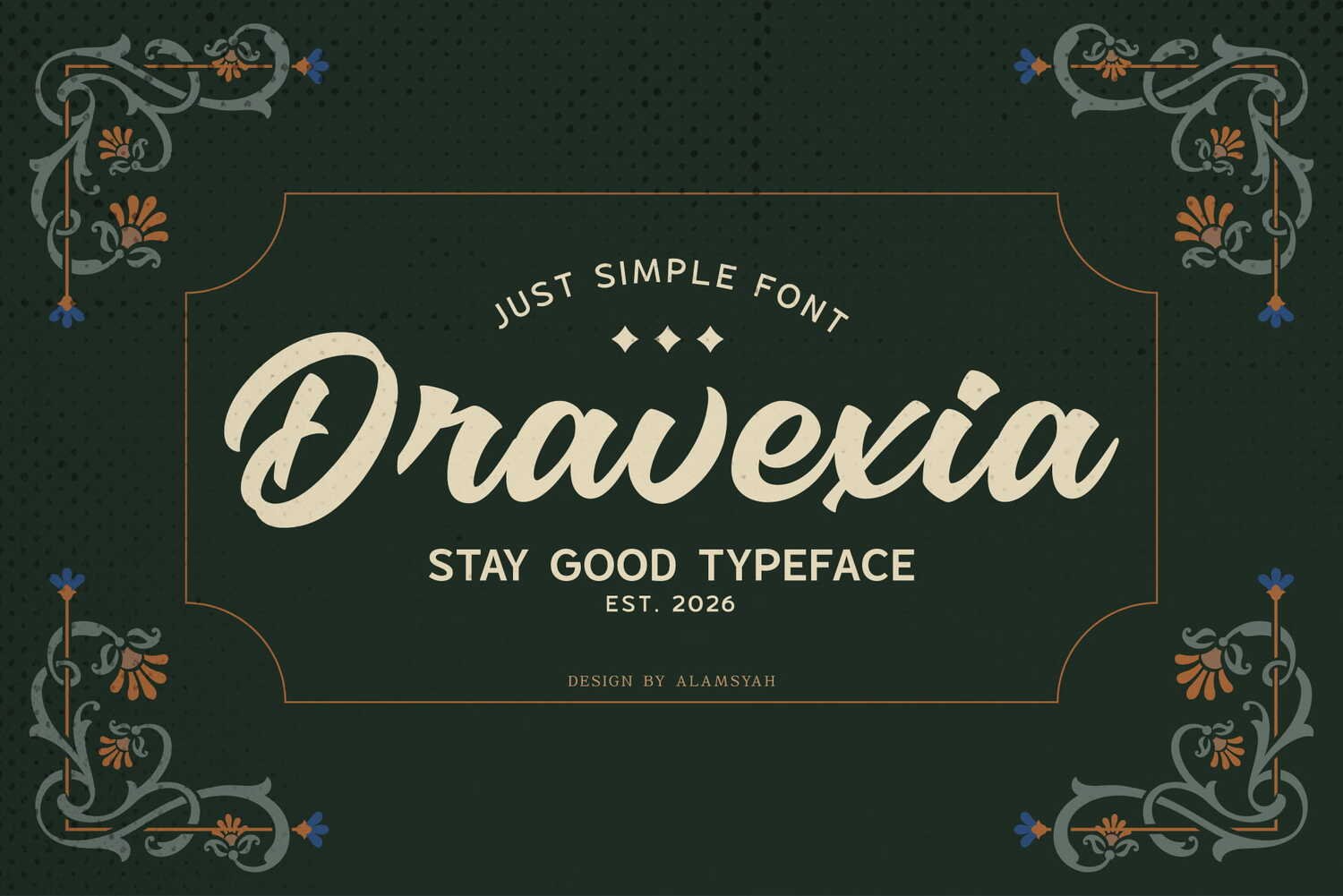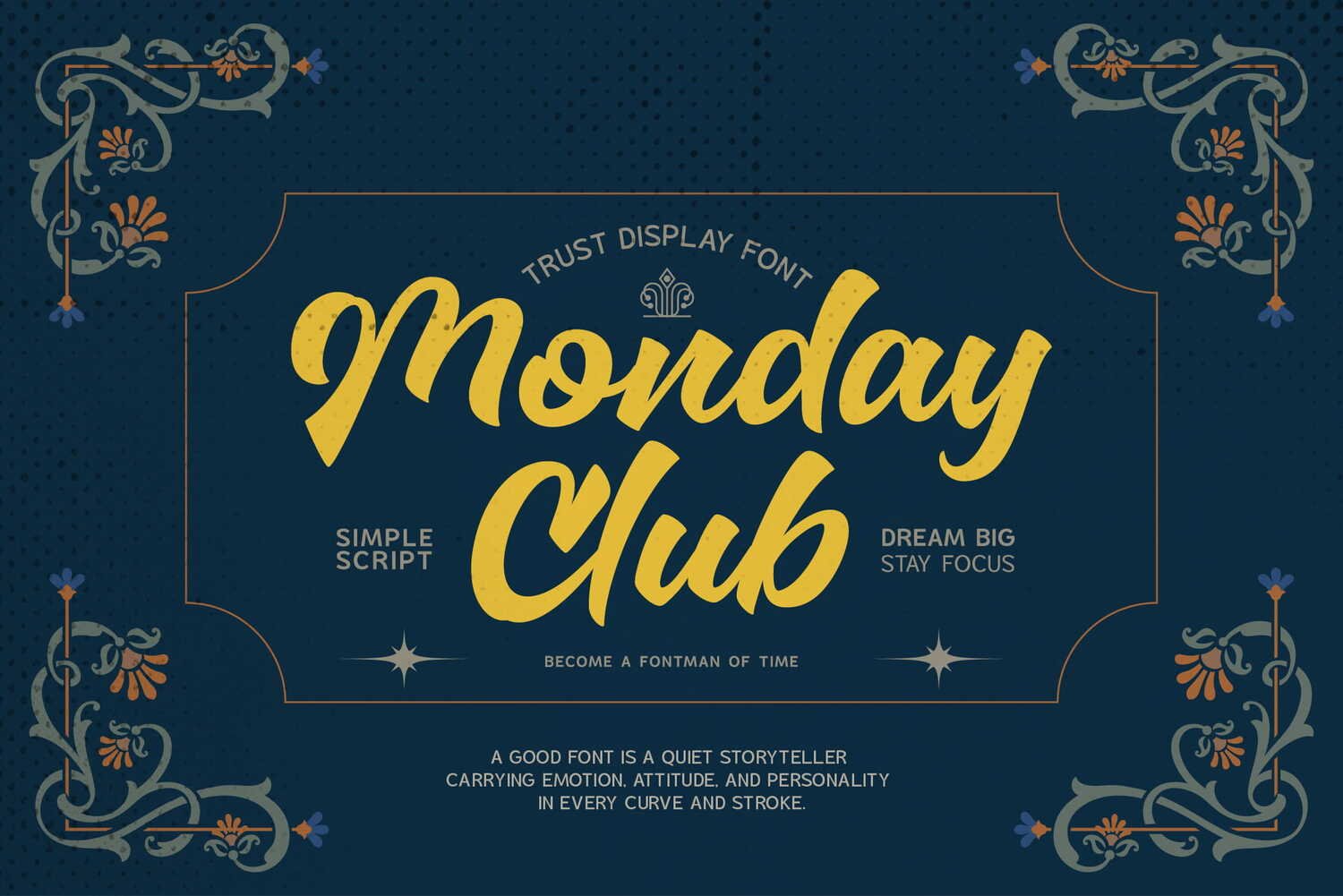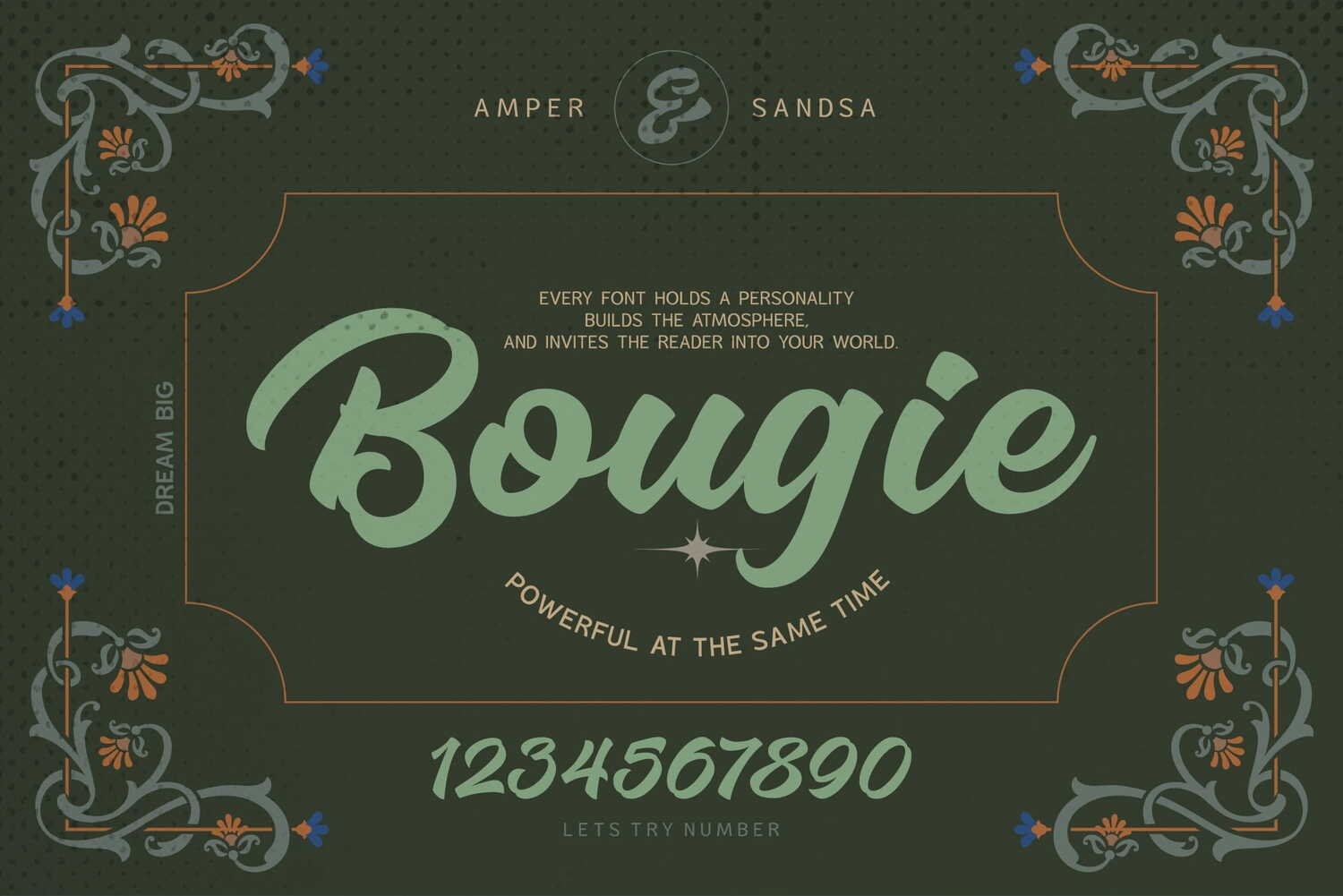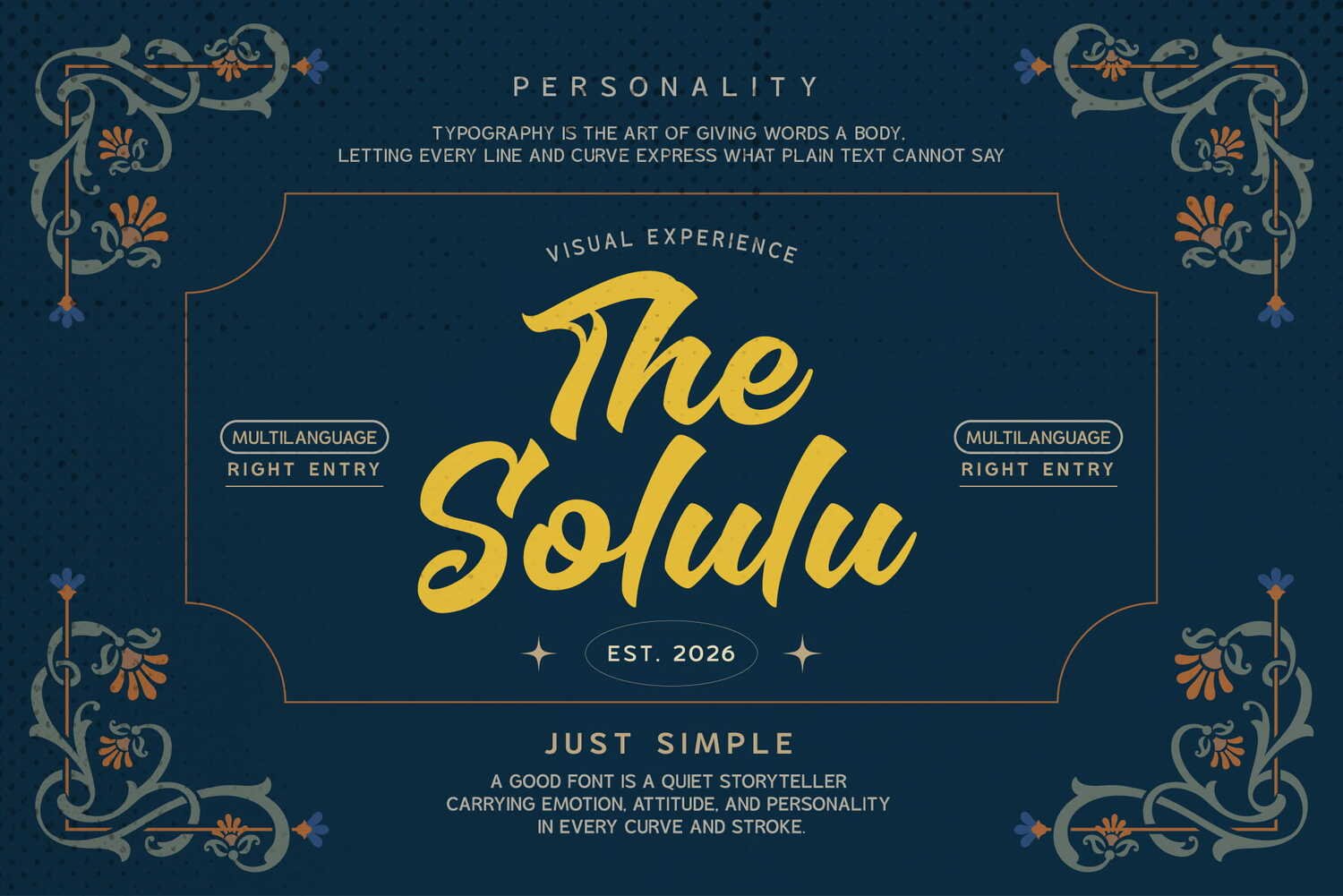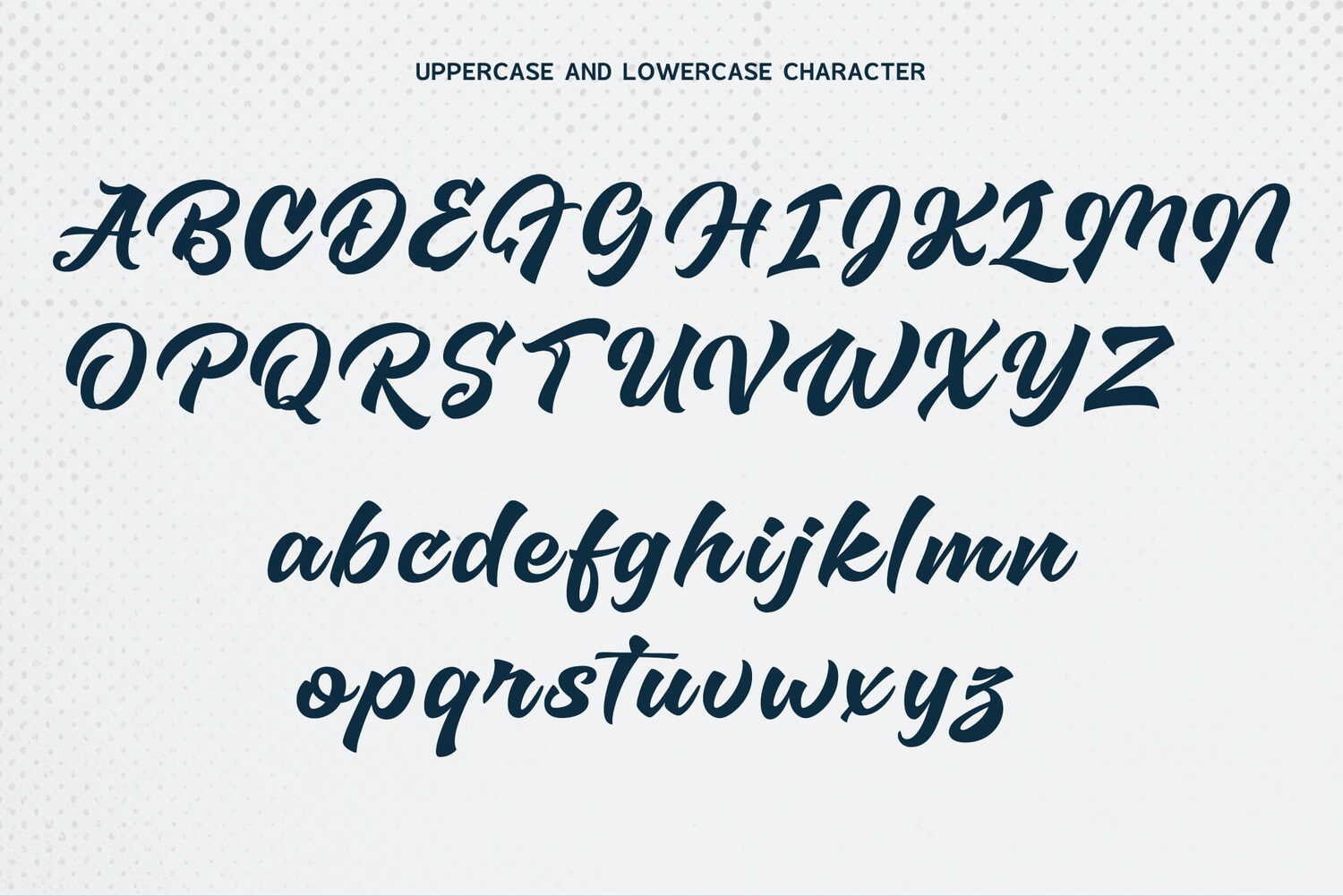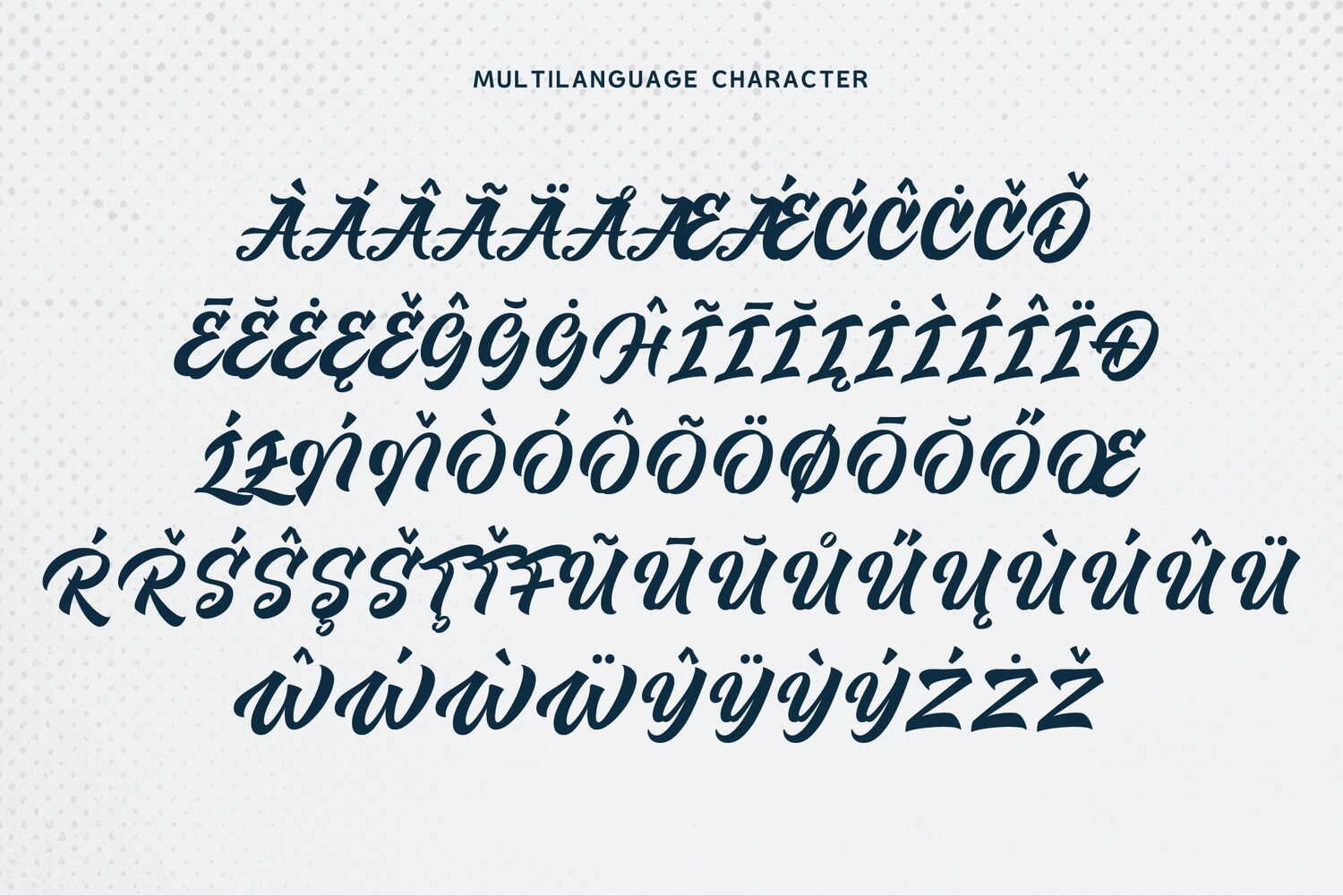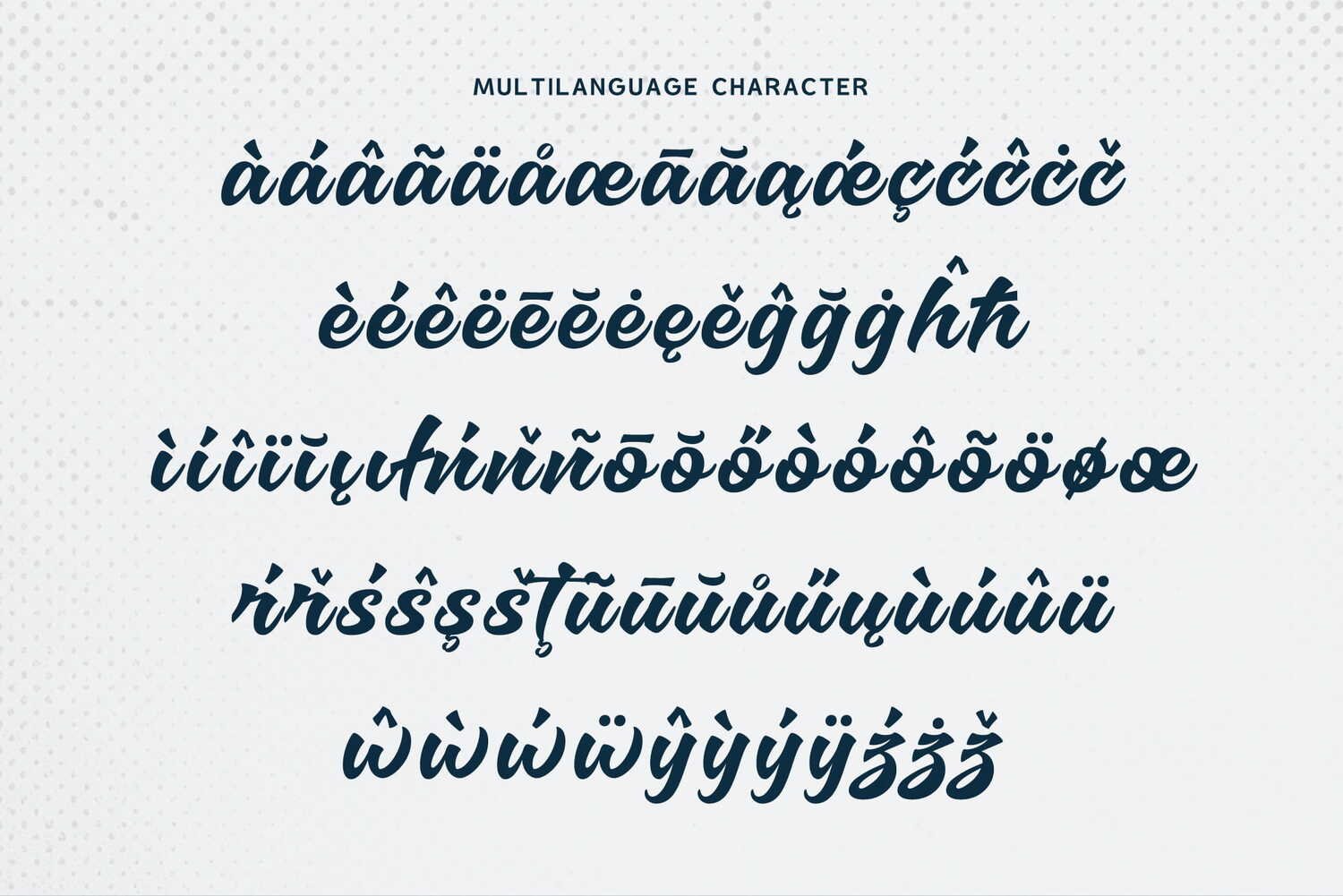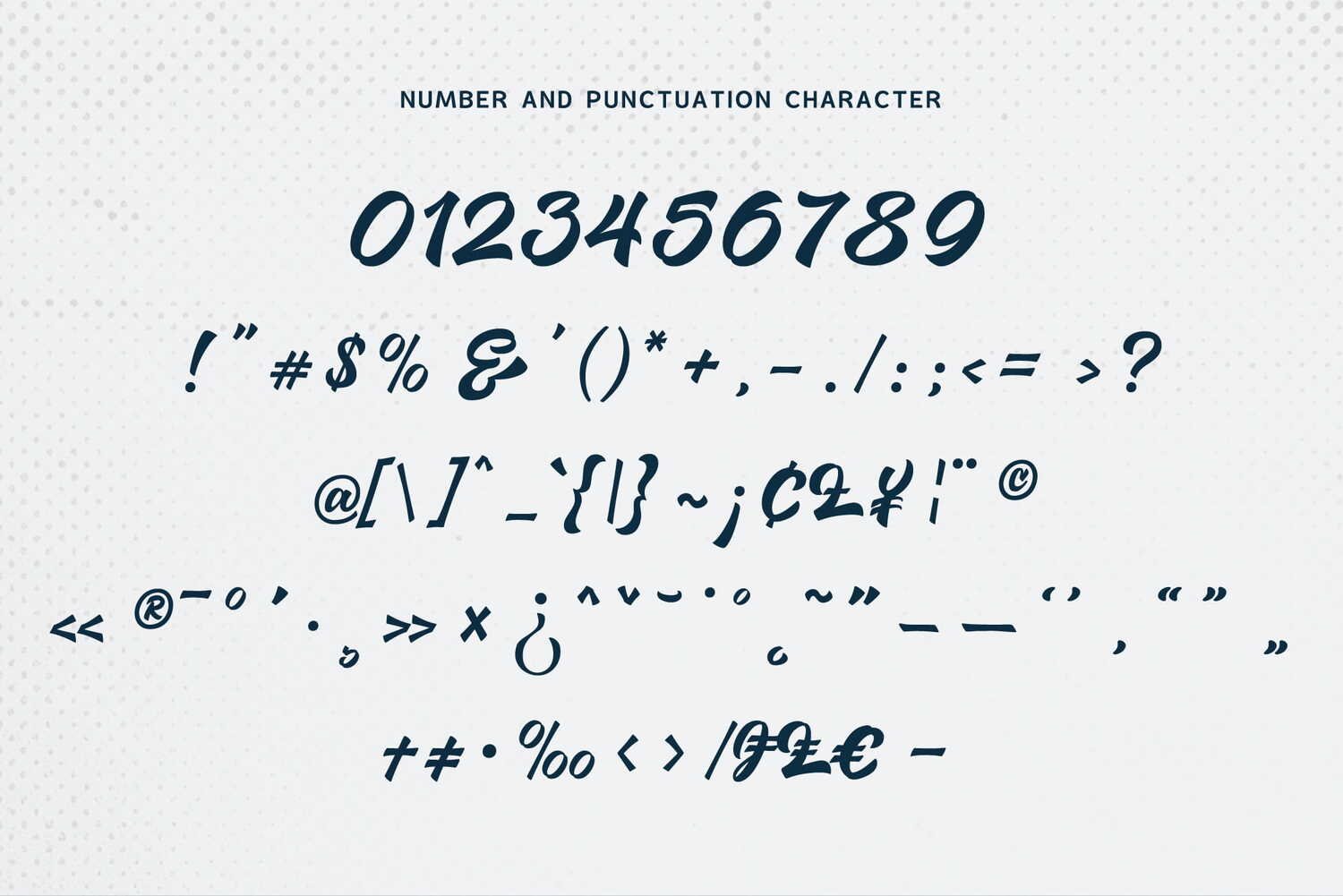
**Dravexia** is a just-simple handcrafted script font with soft brush strokes, smooth curves, and a natural lettering rhythm — crafted to deliver a friendly, stylish, and timeless look. Every character is designed with rounded terminals and effortless flow, giving your typography a premium hand-lettered feel that stays good in any size.
Blending vintage charm with a clean, modern simplicity, Dravexia fits effortlessly into many design styles. It’s the perfect choice for projects that need warm, eye-catching lettering — such as logos, branding, product packaging, coffee shop and bakery menus, handmade labels, posters, signage, apparel, quotes, and social media graphics.
What makes Dravexia special is its casual elegance and instant readability. Its balanced letterforms feel relaxed up close but stay strong and confident as a display, helping you create designs that feel personal, nostalgic, and memorable without overcomplicating.